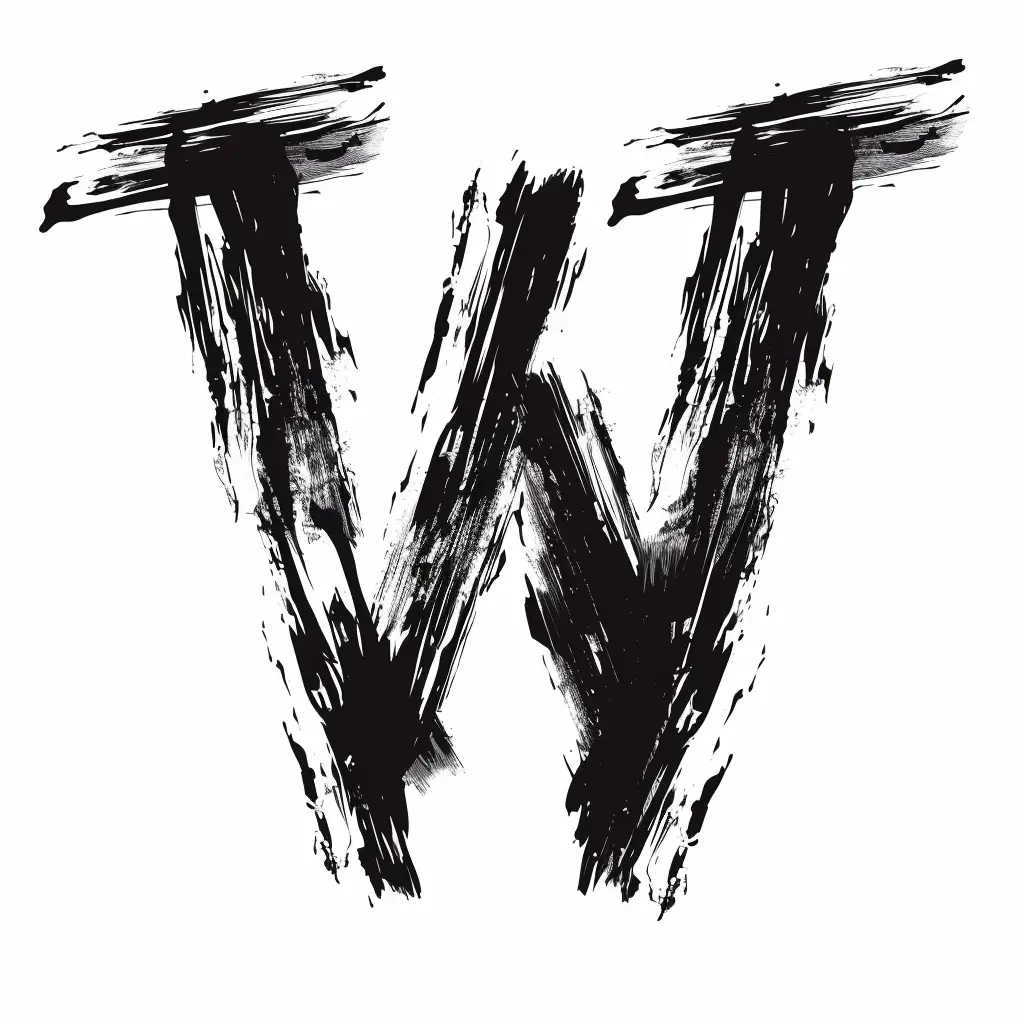
The image features a bold, stylized letter "W" rendered in a rough, brushstroke-like black ink style against a plain white background. The letter has an artistic, textured appearance with uneven edges and dynamic, expressive strokes, emphasizing a hand-painted or grunge aesthetic. The high contrast between the deep black of the letter and the white backdrop highlights its dramatic, artistic form.